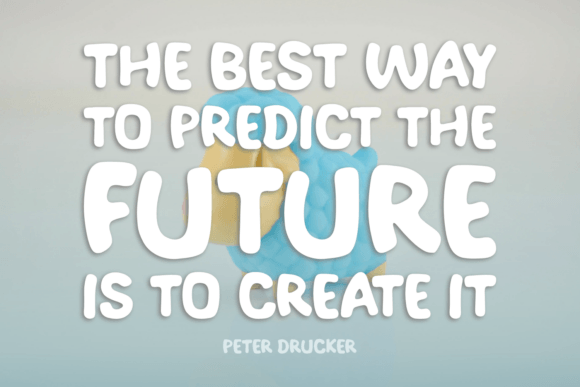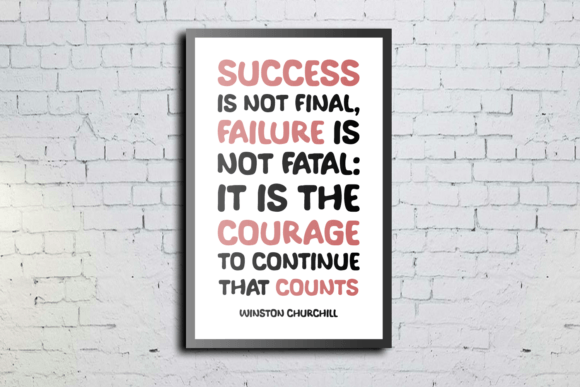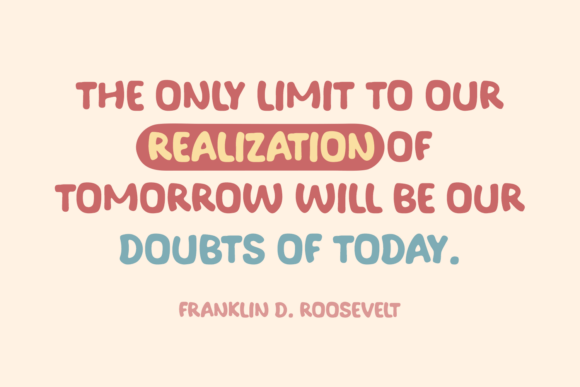
Introduction to Munta Font
Munta is a fun and unique sans-serif font with a quirky style.
Its letters are playful and have a modern feel, making it great for creative designs that need a bit of personality .
Why Choose Munta Font?
Munta Font offers exceptional quality and versatility, making it a valuable addition to your design toolkit. Whether you’re creating for personal projects or commercial use, Munta Font delivers professional results.